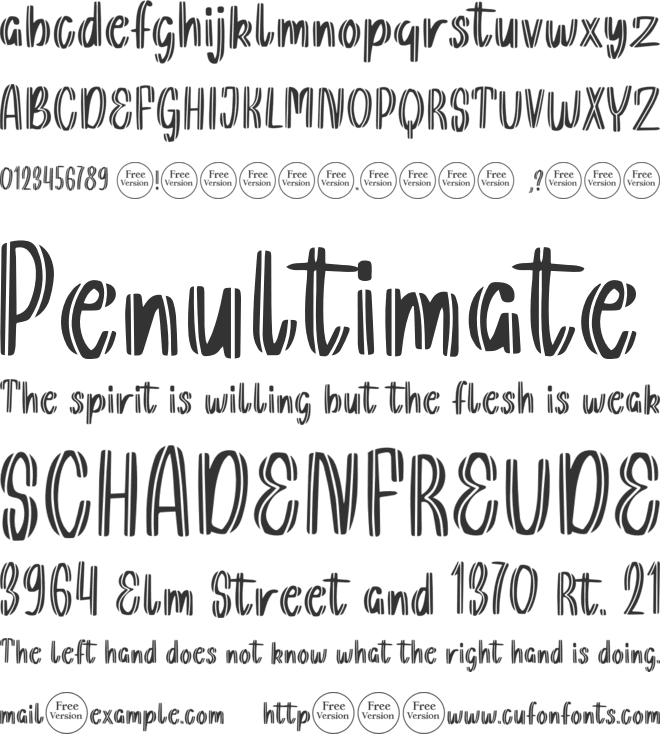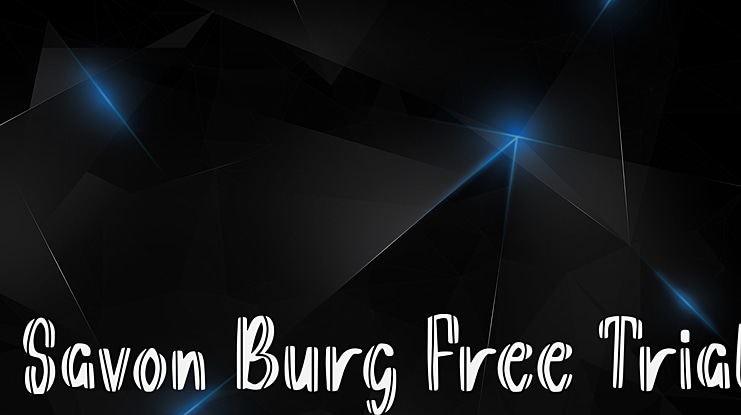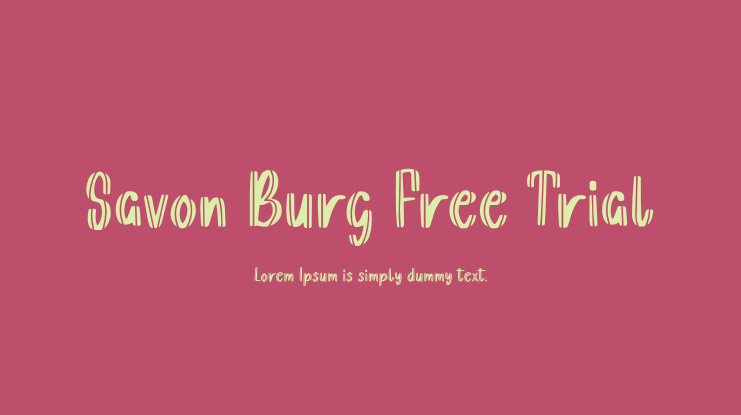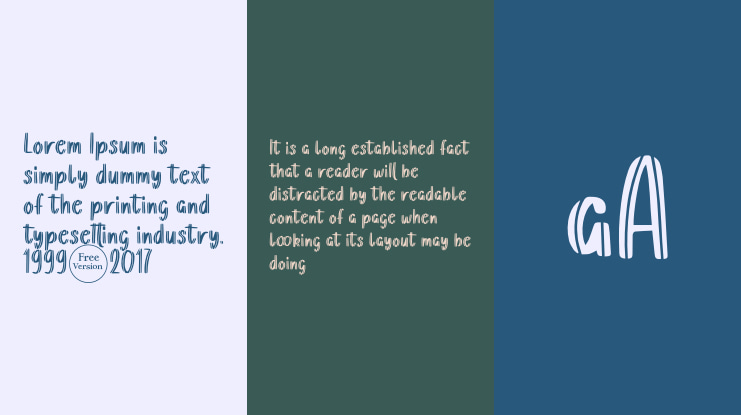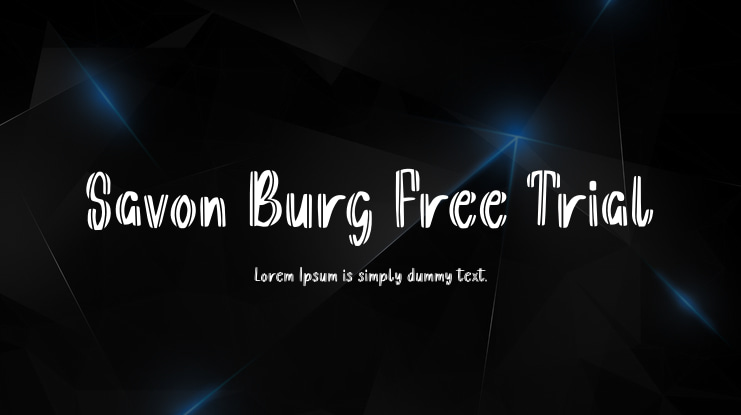
Savon Burg Free Trial Font
Savon Burg is an awesome looking playful display font.
The glyphs are constructed from two concentric paths with decorative feel.
This original look will appeal to a wide range of crafty ideas, from letterheads and titles, packaging, branding, quotes, invitation card, gift card, to stationery.